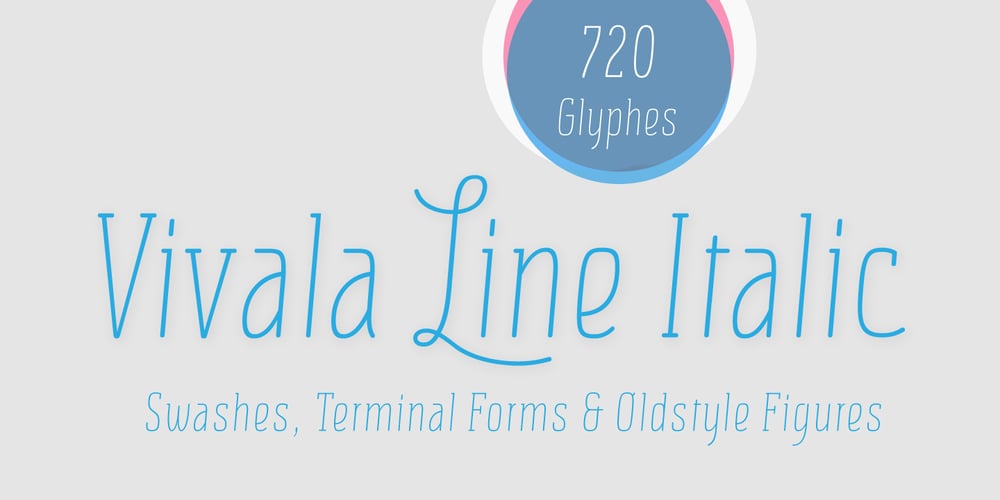
Vivala Line Font Family was designed by Johannes Hoffmann and published by Johannes Hoffmann. Vivala Line contains 1 styles and family package options. Vivala Line is a real italic, and it was inspired by old Polish children’s books with its charming hand drawn lettering titles. Fields of application are posters, magazines, packaging design, books, corporate design up to consolidating reading.